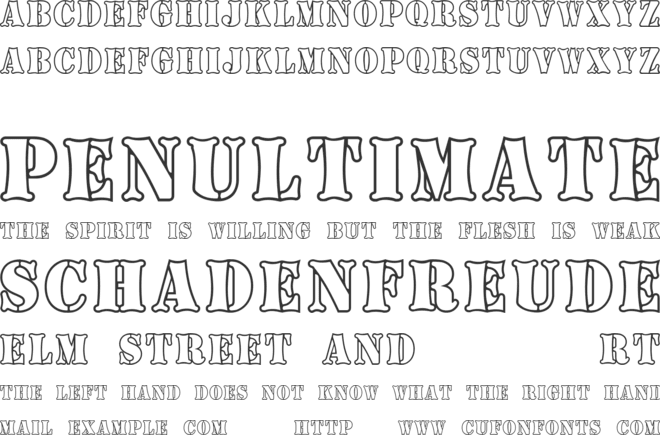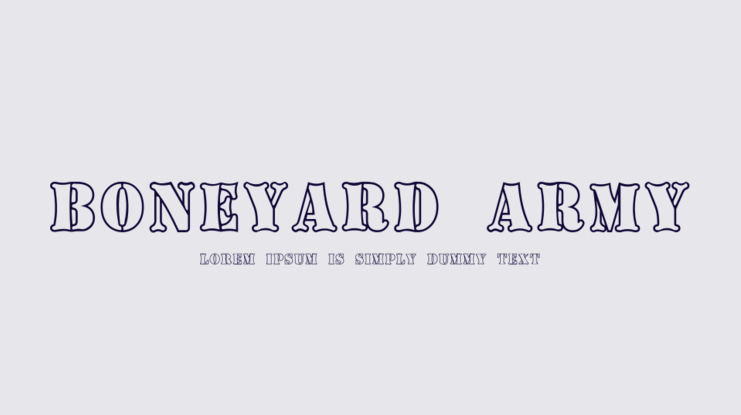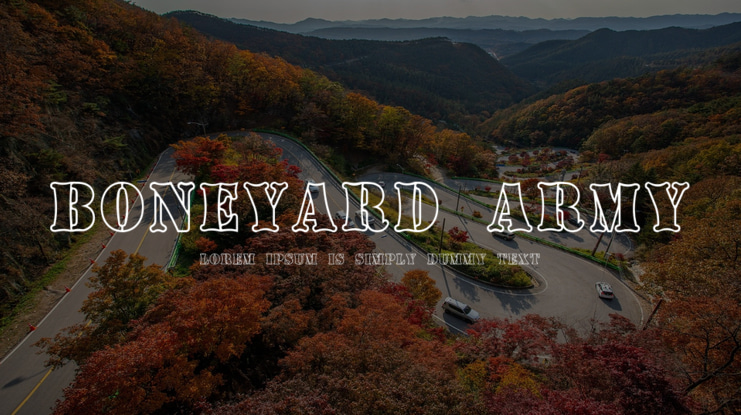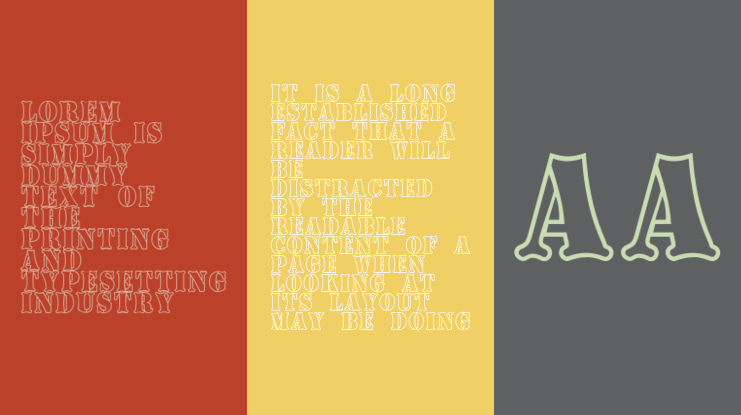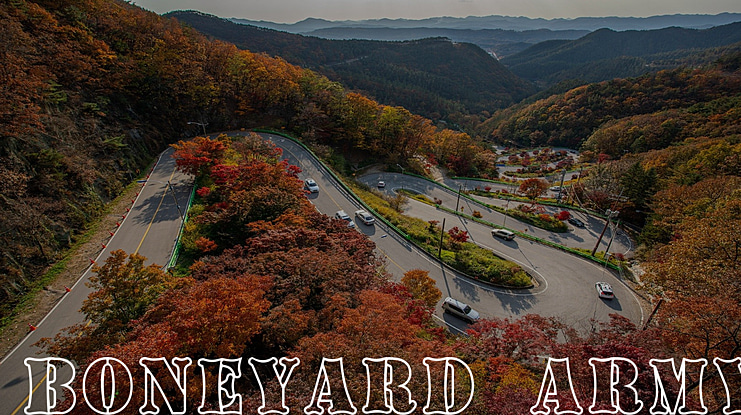
Boneyard Army Font
From inside the muddy filth trench came forth the lone soldier holding a blood spattered journal. Only he survived, and it fell to him to document the ill fate that had befallen his comrades. He checked the battery on his laptop, fired it up, and began to type the woeful story. "which font should I use for such a task?" he muttered...